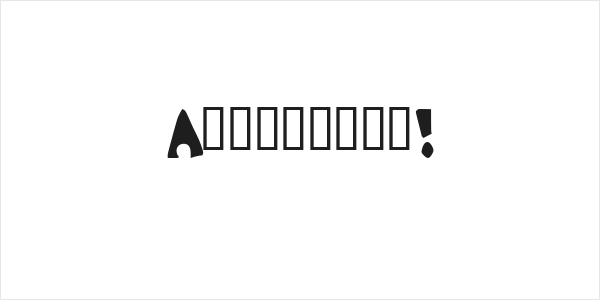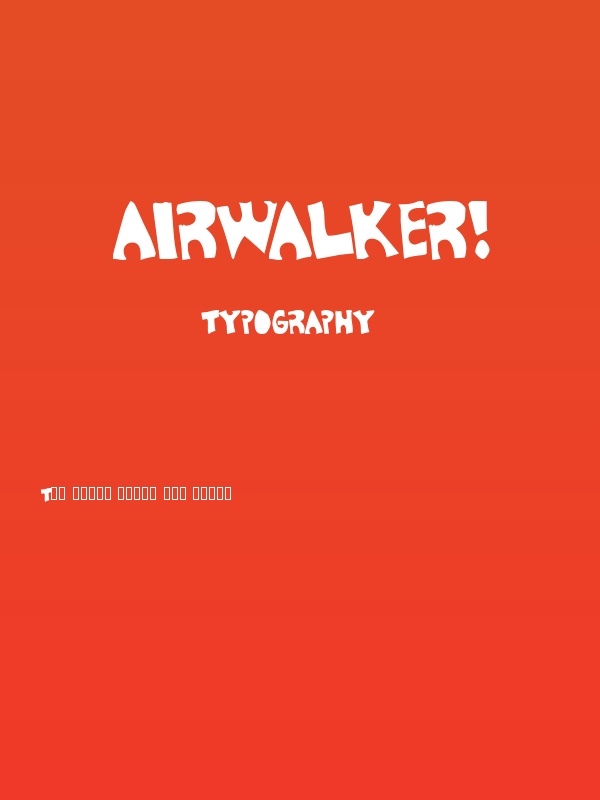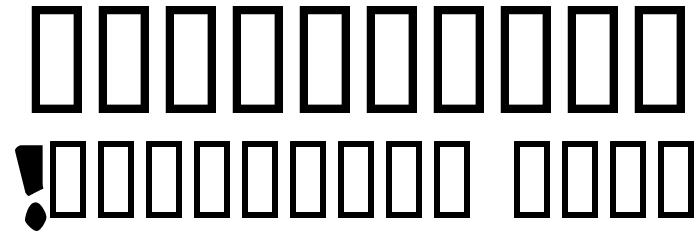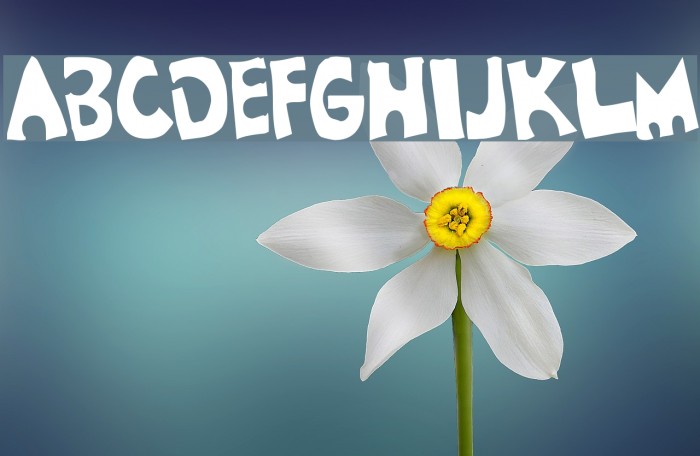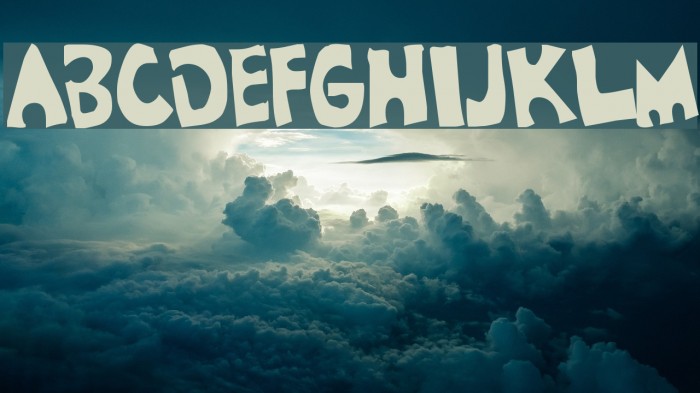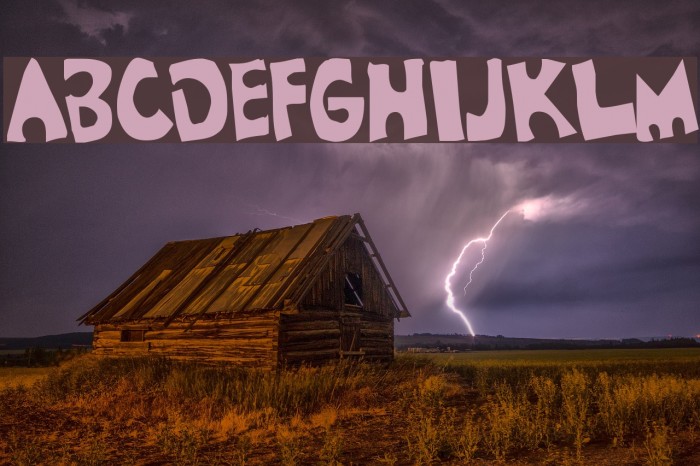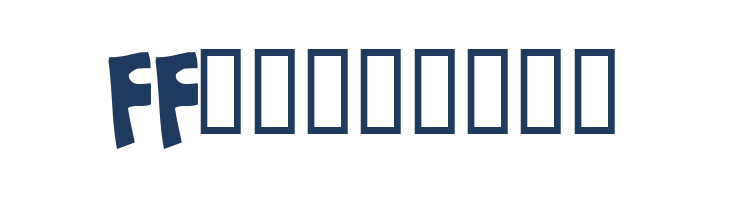
Airwalker! Font
Airwalker! Description
This font features a playful and bold style with exaggerated, rounded shapes that give it a whimsical and dynamic appearance. The uppercase letters are characterized by their thick strokes and uneven baseline, creating a sense of movement and energy. The font lacks lowercase letters and numerals, focusing solely on uppercase characters and a limited set of special symbols. Its design is reminiscent of retro or comic book styles, making it ideal for projects that require a fun and eye-catching aesthetic. The boldness of the letters ensures high visibility, making it suitable for headlines and titles.
| Overall Style | Playful, Retro |
| Proposed Projects | Ideal for comic books, children's posters, playful branding, and eye-catching headlines. |